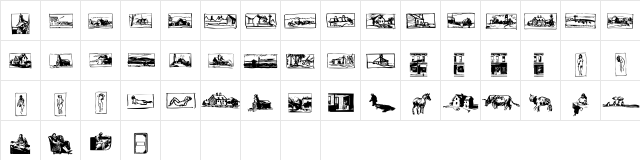
P22 Hopper Sketches
Design Context for P22 Hopper Typeface
P22 Hopper is a composed and adaptable typeface that performs quietly and consistently across a wide range of design contexts.